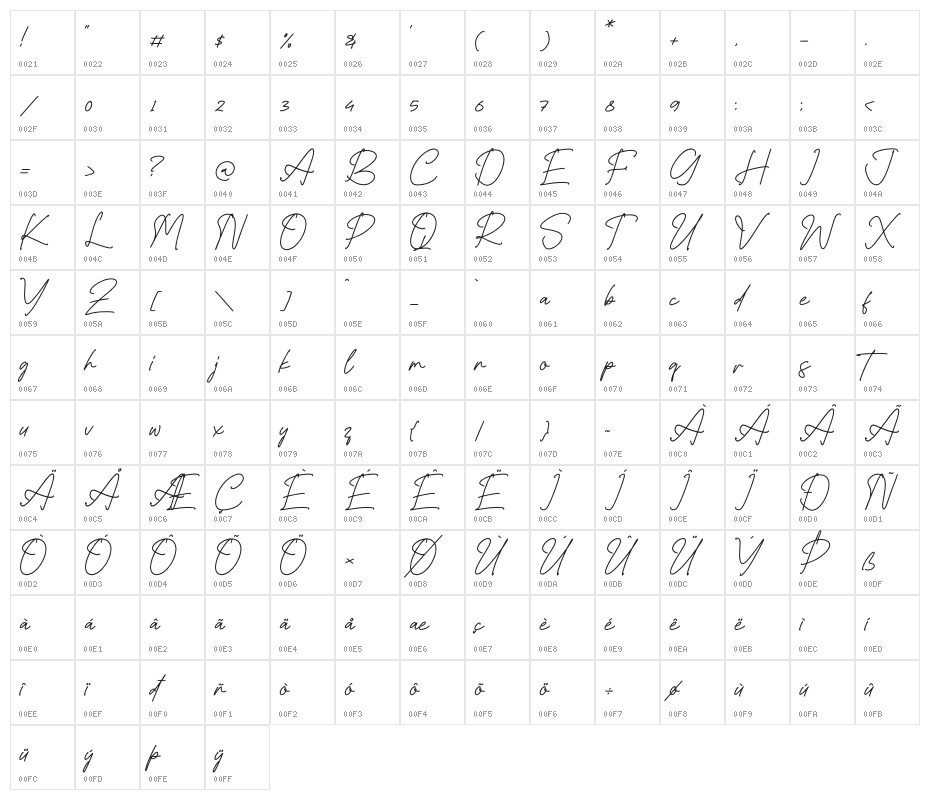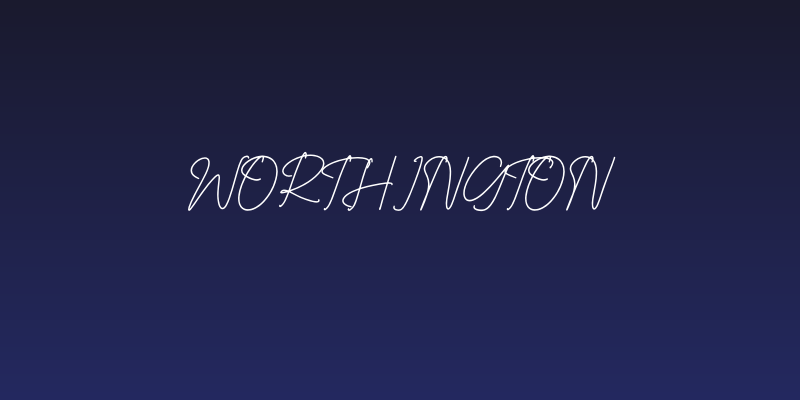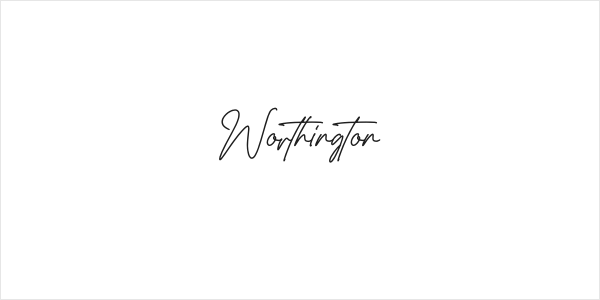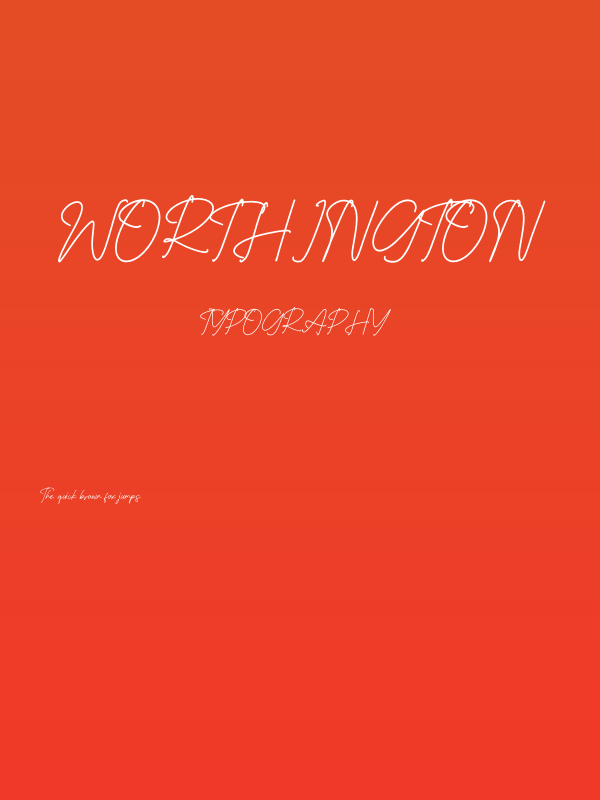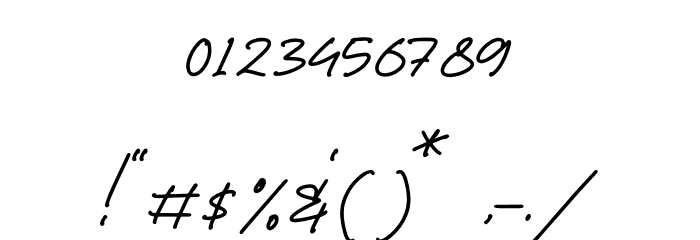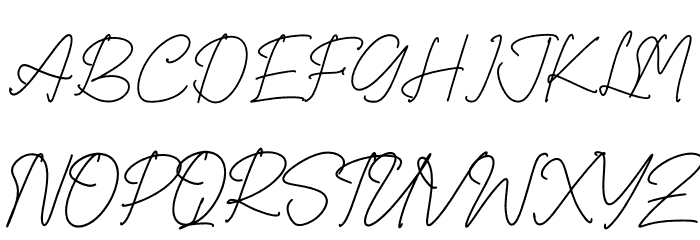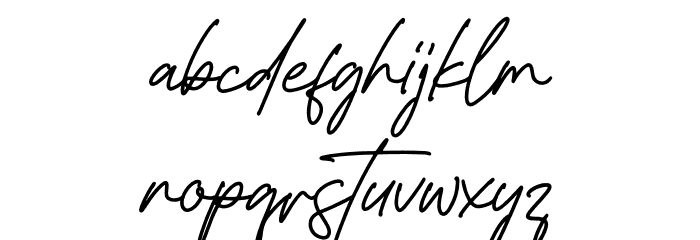
Worthington Font
Worthington Description
This font exudes a casual, handwritten style with a touch of elegance. The letters are fluid and connected, mimicking natural handwriting with a slight slant to the right. The uppercase letters are slightly larger and more pronounced, while the lowercase letters maintain a consistent flow. The numbers and special characters follow the same handwritten aesthetic, providing a cohesive look. The strokes are thin, offering a delicate appearance, yet the overall legibility remains high. This font is ideal for projects that require a personal touch, such as invitations, greeting cards, or branding materials that aim to convey warmth and approachability.
| Overall Style | Casual, Elegant, Handwritten |
| Use Case | Invitations, Greeting cards, Personal branding |
| Proposed Projects | Ideal for invitations, greeting cards, personal branding, and any project needing a personal touch. |